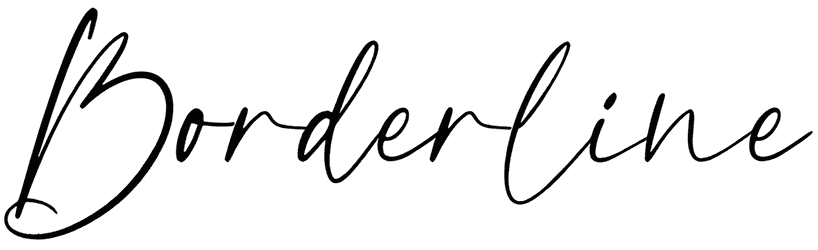
Borderline Font
A cursive script font, the same as Borderline, can help you a hand to be dominant in the field of designing high-end graphic content, including diplomas, branding, magazines, or social media posts.